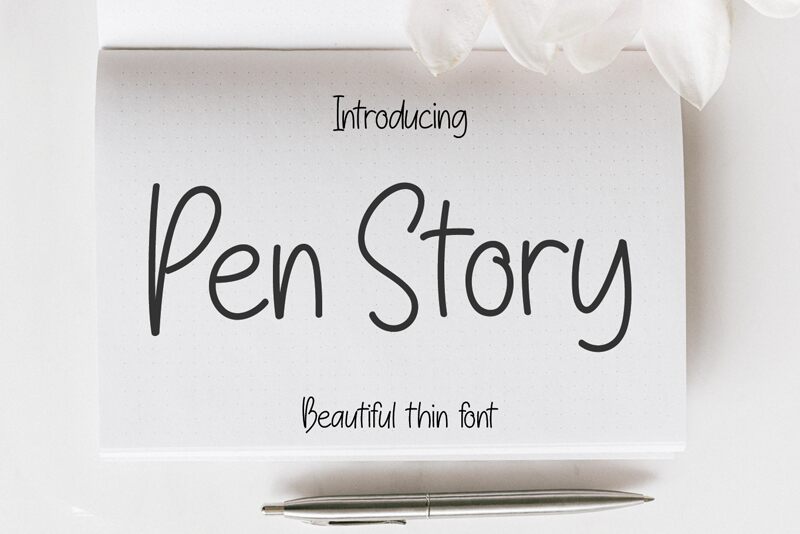
Pen Story
Pen Story is a whimsical, handwritten font created by Erik Studio. Its light weight adds a delicate touch to any design project, making it perfect for invitations, greeting cards, or other special occasion materials. This font style captures the essence of personal handwriting and imbues it with a unique charm that is sure to delight readers. Whether you're creating wedding stationery or designing an Instagram post, Pen Story's playful and friendly appearance will add warmth and personality to your work. Let your words flow freely with this semi-bold font that's perfect for any project that needs a touch of whimsy!